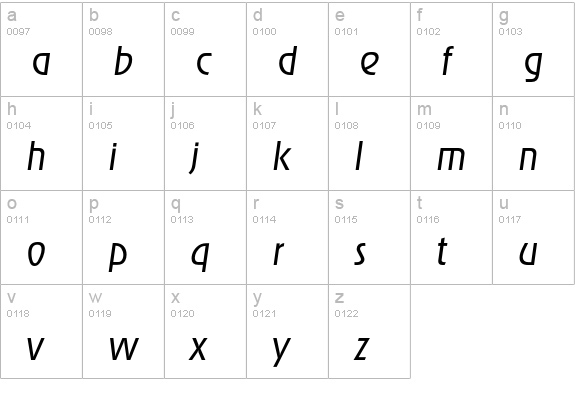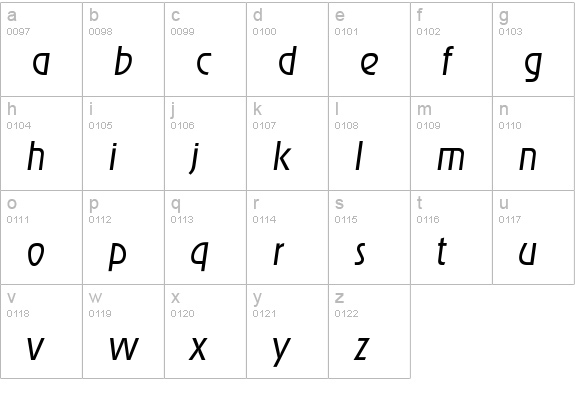
Ragtime-LightIta Font Details
Ragtime-LightIta is a charming and versatile font that exudes a sense of elegance and sophistication. Its delicate strokes and graceful curves create a harmonious balance that is pleasing to the eye. This font effortlessly captures the essence of the ragtime era, with its playful yet refined design. Ragtime-LightIta is the perfect choice for a wide range of creative projects. Whether you're designing a vintage-inspired logo, crafting an eye-catching poster, or adding a touch of nostalgia to your wedding invitations, this font will elevate your designs to new heights. What makes Ragtime-LightIta even more appealing is the fact that it is completely free. That's right, you can freely download and use this font without any restrictions. Now, you can add a touch of timeless beauty to your projects without breaking the bank. To get your hands on Ragtime-LightIta, simply head over to FontsMarket.com. There, you will find a vast collection of high-quality fonts, including this gem. With just a few clicks, you can download Ragtime-LightIta and start incorporating its elegance into your designs. Don't miss out on the opportunity to enhance your creative endeavors with this stunning font. Download Ragtime-LightIta today and let its timeless appeal inspire your next project.